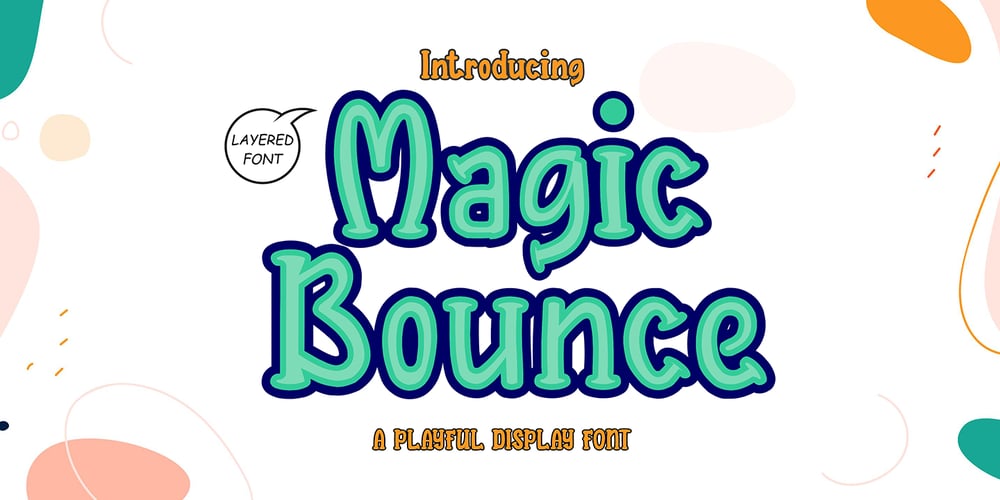
Magic Bounce 3d
Magic Bounce 3d Font Family was designed by Sipanji and published by Sipanji21. Magic Bounce 3d contains 3 styles and family package options. “Magic Bounce” is a cute display font with three unique layers: regular, inner shadow, and outer shadow. This font is designed to add a playful and charming touch to your designs. The regular layer provides a delightful and whimsical appearance, while the inner and outer shadow layers add depth and dimension, giving your text a bouncing and magical effect. With its versatile layers, “Magic Bounce” is perfect for creating eye-catching headlines, posters, invitations, and other designs that need a touch of fun and enchantment. Embrace the magic of creativity with this delightful and versatile display font.